VViViD Vinyl
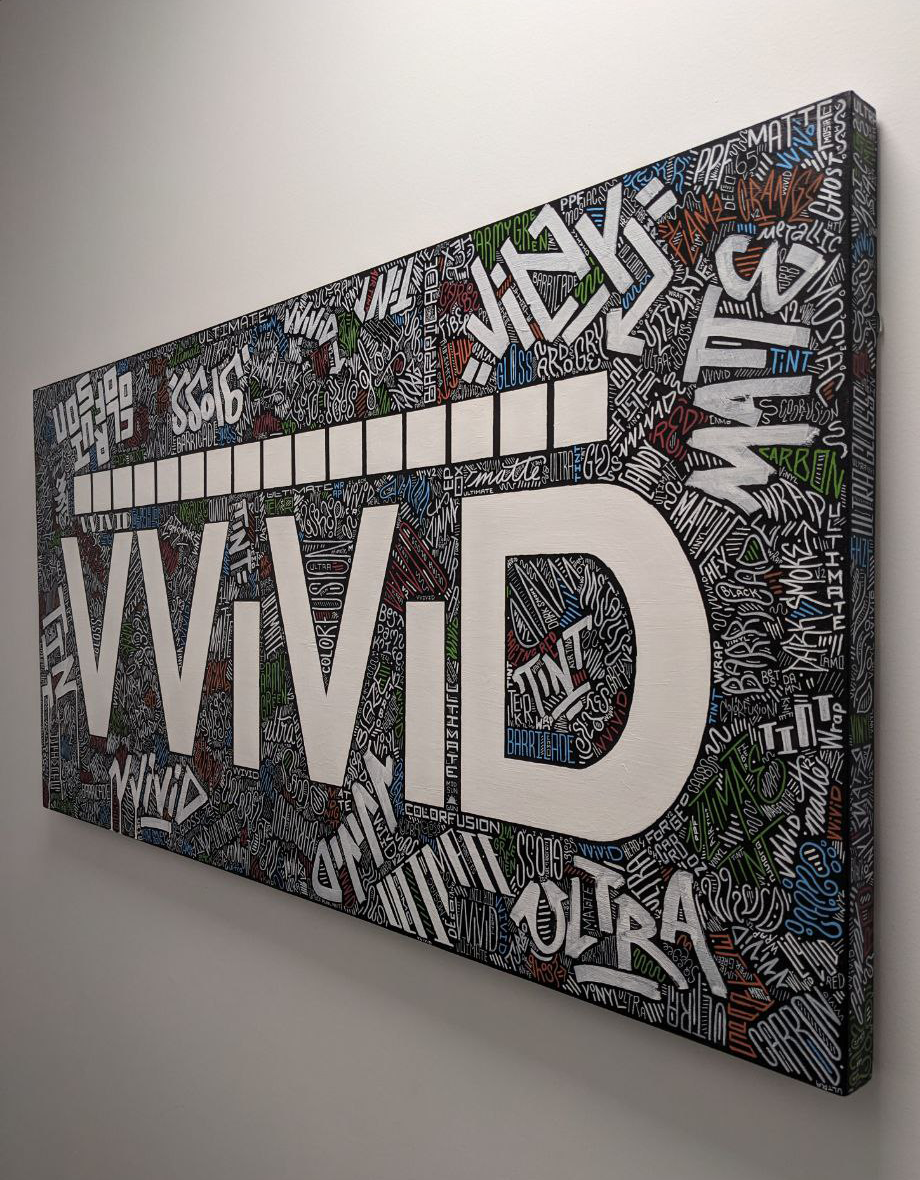
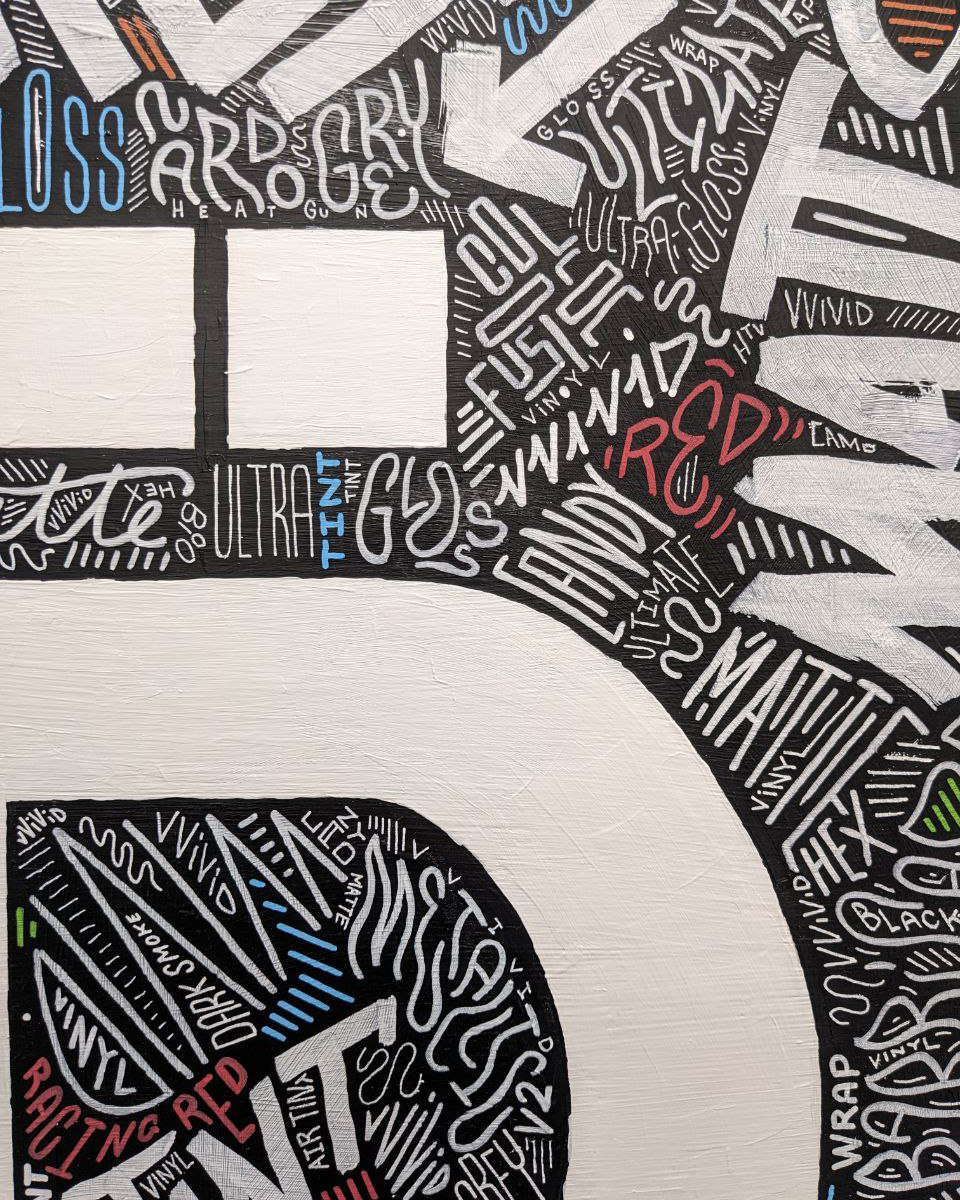
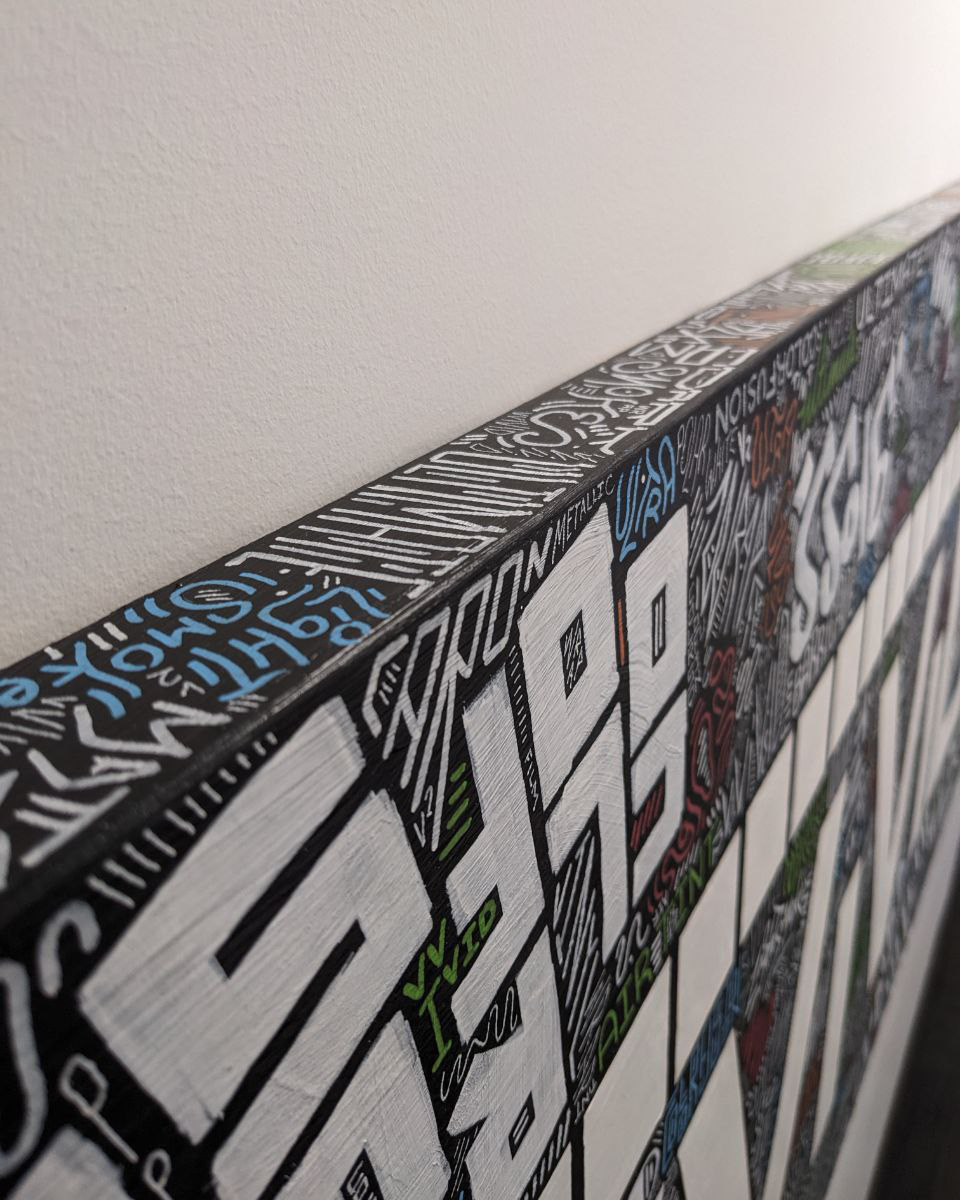
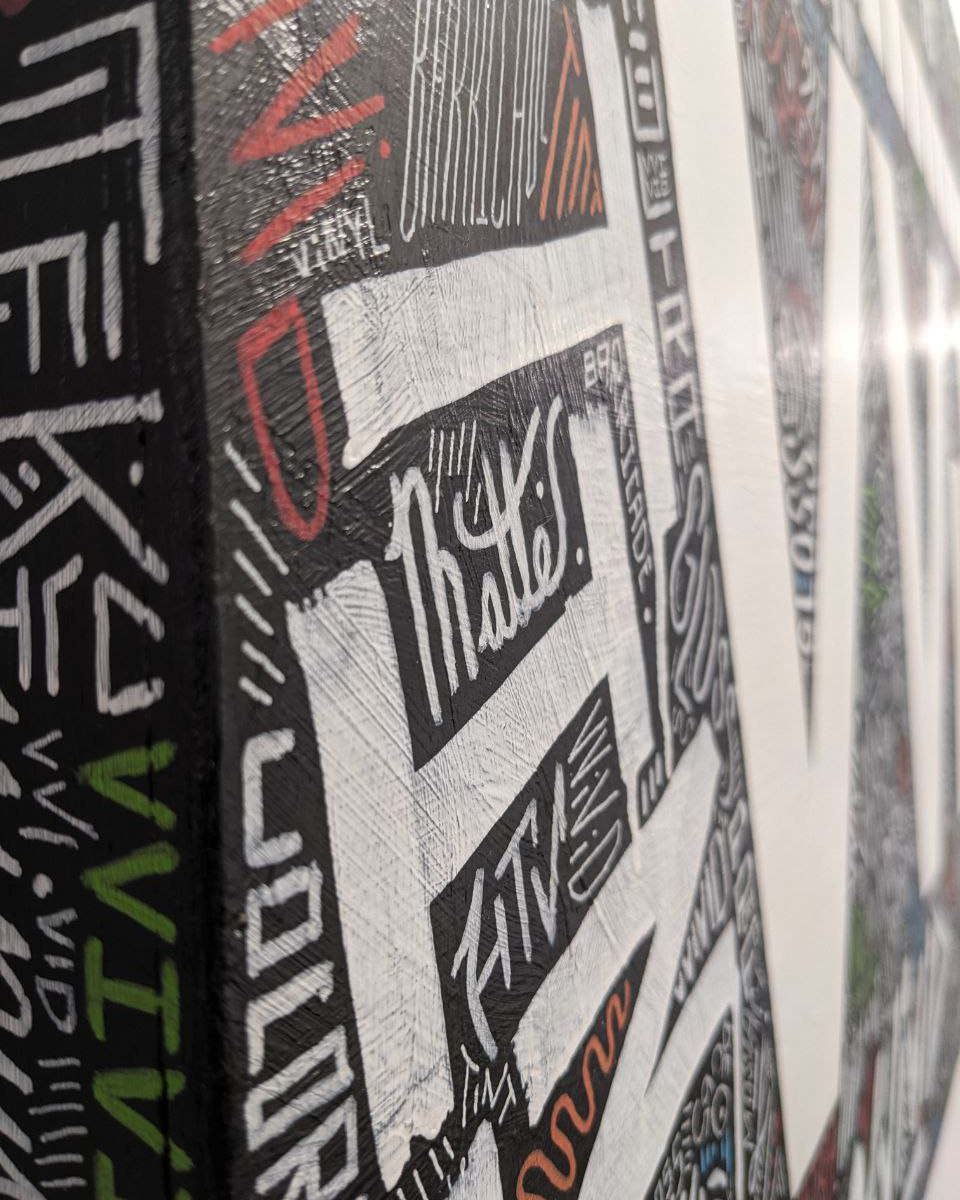
About the Painting
VViViD was looking to add energy to their space with something bold that would immediately catch the eye of clients as they walked in. This piece features my signature style, a dynamic blend of graffiti, calligraphy, and lettering, designed to command attention and bring the walls to life.